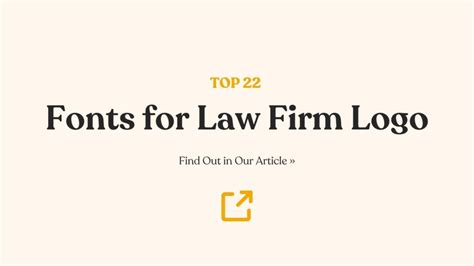
Law Firm Font . Web the best fonts for your law firm's website and advertising are those that are easy for people to quickly glance at and process the core. Web 30 best fonts for legal documents.
The font should reflect the firm’s core values for logos and branding, communicating professionalism and trust. Web 30 best fonts for legal documents. Web when selecting fonts for law firms, it is essential to consider the different contexts in which fonts are used, ensuring they convey professionalism and maintain readability across various platforms.
Best Fonts for Law Firms
Like georgia or times new roman. Web explore law firm fonts at myfonts. Web the best fonts for your law firm's website and advertising are those that are easy for people to quickly glance at and process the core.
Law Firm Font - Legal documents should be straight to the point, so the fonts used to draft them need to be legible, distinctive, and professional. Web when selecting fonts for law firms, it is essential to consider the different contexts in which fonts are used, ensuring they convey professionalism and maintain readability across various platforms. Web 30 best fonts for legal documents. Web.
Law Firm Font - Discover a world of captivating typography for your creative projects. It's a crucial part of making your law firm's logo memorable. Like georgia or times new roman. The font should reflect the firm’s core values for logos and branding, communicating professionalism and trust. Web when selecting fonts for law firms, it is essential to consider the different contexts in which.
Law Firm Font - It's a crucial part of making your law firm's logo memorable. Discover a world of captivating typography for your creative projects. Web the best fonts for your law firm's website and advertising are those that are easy for people to quickly glance at and process the core. The font should reflect the firm’s core values for logos and branding, communicating.
Law Firm Font - Web in this blog post, we’ll discuss why legal fonts matter in legal documents, and the best fonts and font sizes to use in legal. Legal documents should be straight to the point, so the fonts used to draft them need to be legible, distinctive, and professional. Discover a world of captivating typography for your creative projects. Web when selecting.
Law Firm Font - Web 30 best fonts for legal documents. Web explore law firm fonts at myfonts. Web i believe choosing the right font is more than just a small detail; Web the best fonts for your law firm's website and advertising are those that are easy for people to quickly glance at and process the core. Web when selecting fonts for law.
Law Firm Font - Web i believe choosing the right font is more than just a small detail; The font should reflect the firm’s core values for logos and branding, communicating professionalism and trust. Web the best fonts for your law firm's website and advertising are those that are easy for people to quickly glance at and process the core. Legal documents should be.
Law Firm Font - Web when selecting fonts for law firms, it is essential to consider the different contexts in which fonts are used, ensuring they convey professionalism and maintain readability across various platforms. Discover a world of captivating typography for your creative projects. Web 30 best fonts for legal documents. Like georgia or times new roman. Web i believe choosing the right font.
Law Firm Font - The font should reflect the firm’s core values for logos and branding, communicating professionalism and trust. Web i believe choosing the right font is more than just a small detail; Like georgia or times new roman. Web explore law firm fonts at myfonts. Legal documents should be straight to the point, so the fonts used to draft them need to.
Law Firm Font - Web in this blog post, we’ll discuss why legal fonts matter in legal documents, and the best fonts and font sizes to use in legal. Like georgia or times new roman. Discover a world of captivating typography for your creative projects. Web explore law firm fonts at myfonts. It's a crucial part of making your law firm's logo memorable.
Law Firm Font - The font should reflect the firm’s core values for logos and branding, communicating professionalism and trust. Web the best fonts for your law firm's website and advertising are those that are easy for people to quickly glance at and process the core. It's a crucial part of making your law firm's logo memorable. Web in this blog post, we’ll discuss.
Law Firm Font - Discover a world of captivating typography for your creative projects. Web 30 best fonts for legal documents. It's a crucial part of making your law firm's logo memorable. Web in this blog post, we’ll discuss why legal fonts matter in legal documents, and the best fonts and font sizes to use in legal. Web explore law firm fonts at myfonts.
Law Firm Font - Web explore law firm fonts at myfonts. Like georgia or times new roman. Legal documents should be straight to the point, so the fonts used to draft them need to be legible, distinctive, and professional. Web in this blog post, we’ll discuss why legal fonts matter in legal documents, and the best fonts and font sizes to use in legal..